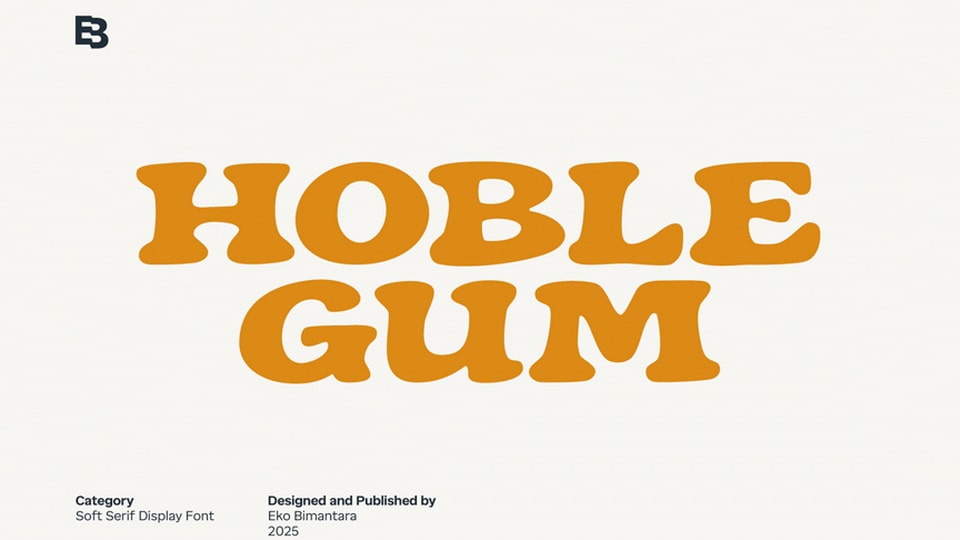
Download Hoble Gum font, a soft serif display typeface bursting with playful retro energy. This font blends chunky curves and whimsical serifs with a bold, bubbly charm.